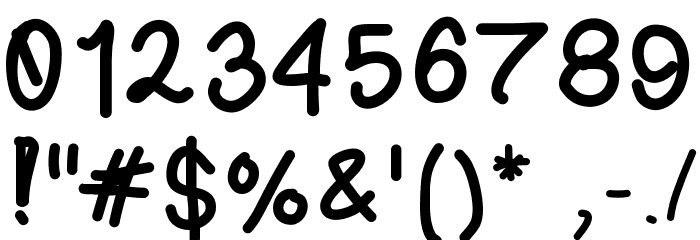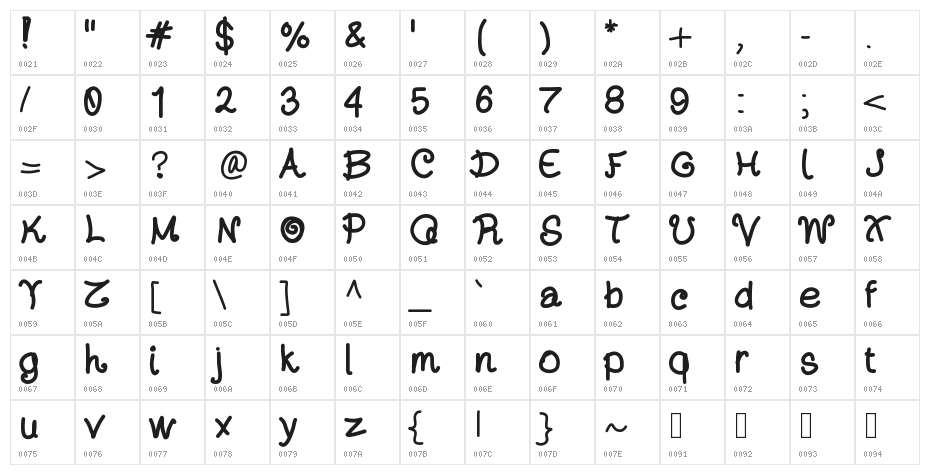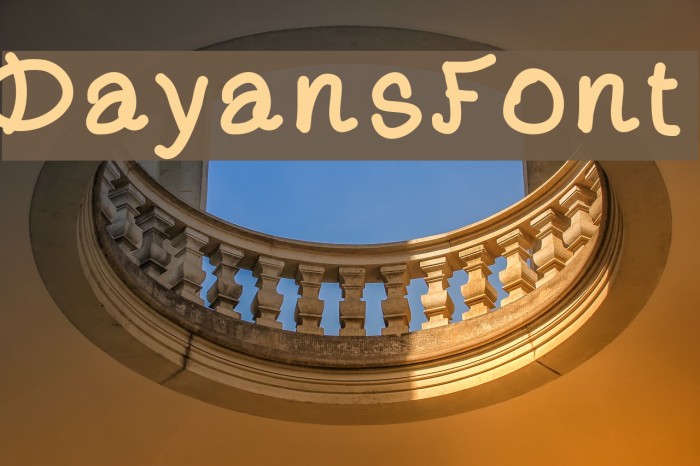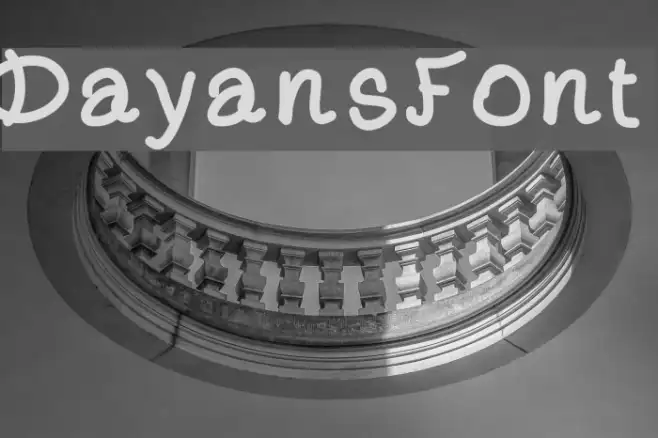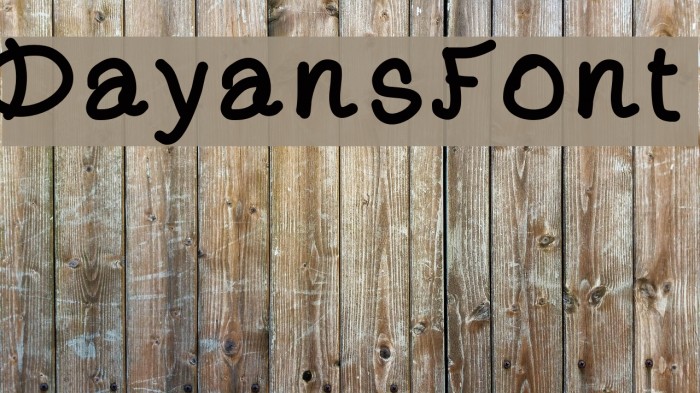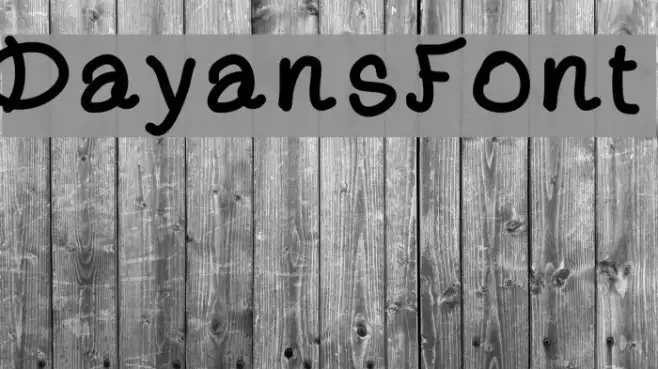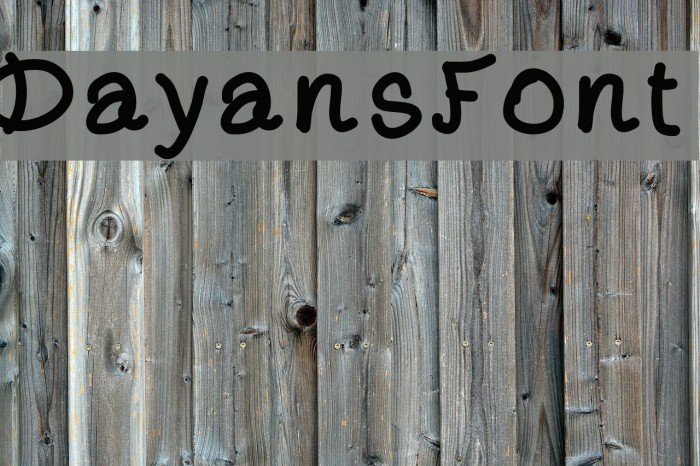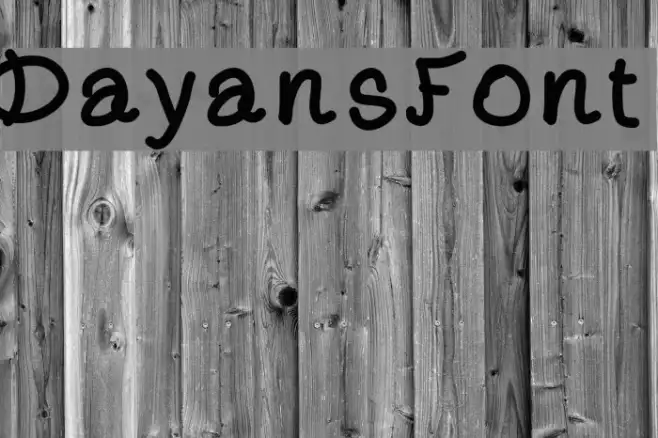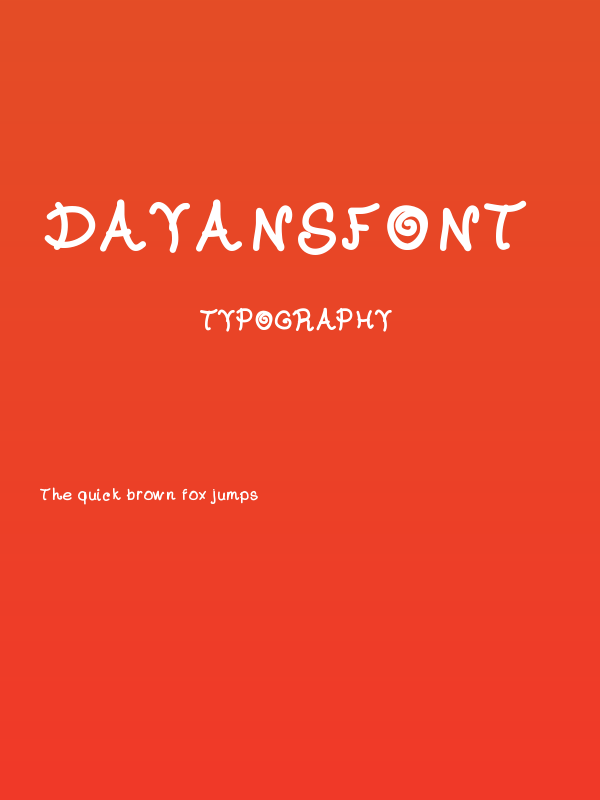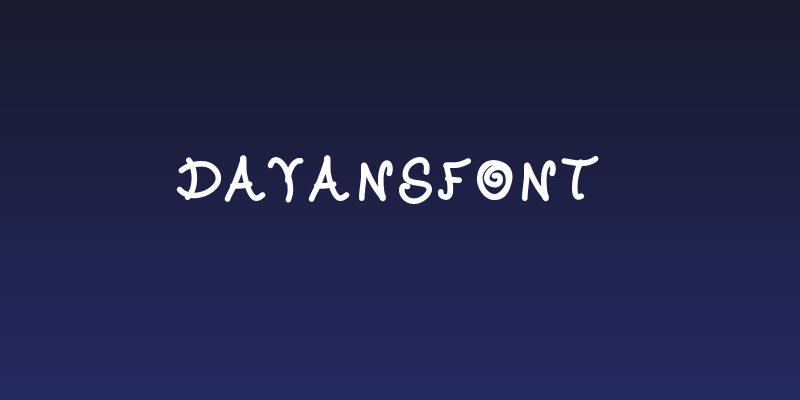
DayansFont Font
DayansFont Description
This playful and whimsical font features rounded, bold characters with a hand-drawn appearance. The letters have a consistent thickness, giving them a uniform look, while the slightly irregular shapes add a touch of charm and personality. The uppercase and lowercase letters maintain a cohesive style, with smooth curves and a friendly, approachable feel. The numbers and special characters are designed to match the overall aesthetic, ensuring a harmonious look across all text. This font is perfect for projects that require a fun and informal touch.
| Proposed Projects | Ideal for children's books, playful branding, greeting cards, and casual invitations. |